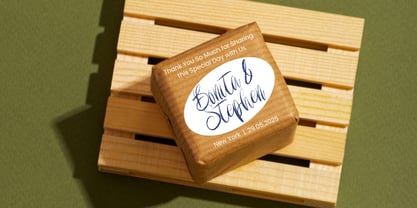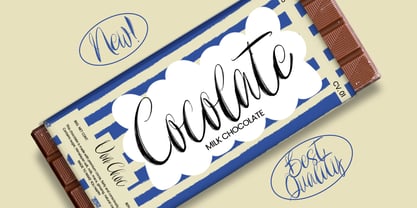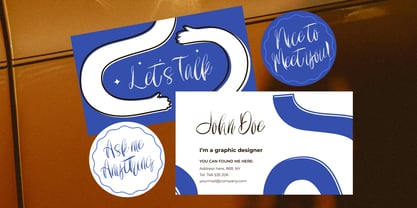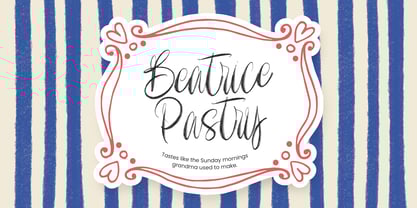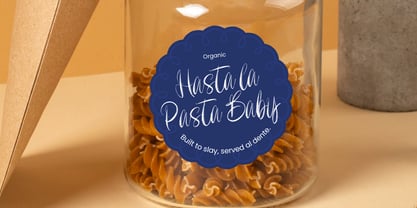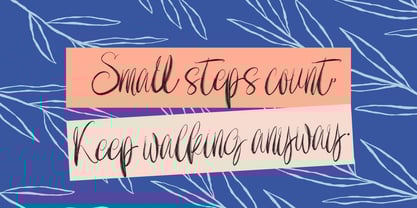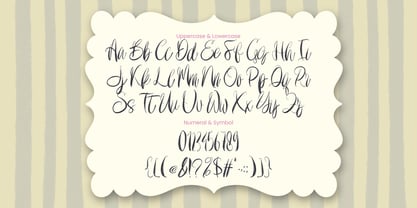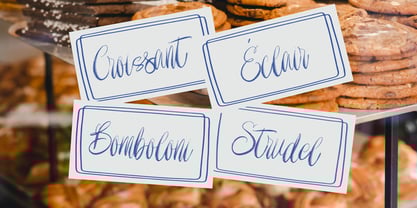
Letters to Elise
by madjack.font
The Letters to Elise Font Family was designed by Zaki Muhammad and published by madjack.font. Letters to Elise contains 1 styles. More about this family
Letters To Elise is a modern classic style script font inspired by classic handwriting in books. This font comes complete with style sets, contextual alternates, ligatures, and also multilingual support that adds to the aesthetics that make your work more attractive.
This font is perfect for your creative projects such as Logotype, printed quotes, invitations, cards, product packaging, headers, Letterheads, Apparel, Web Design, Magazines, Books, etc.